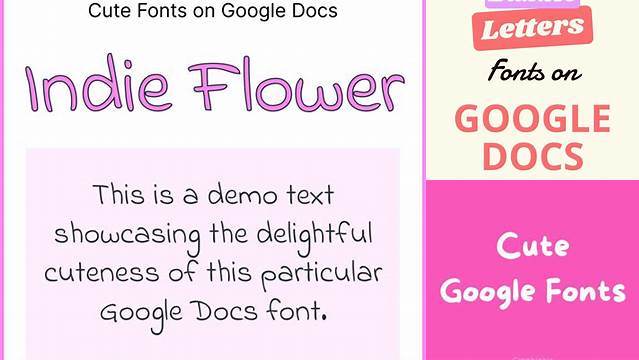
Cute Fonts For Google Docs: Make Your Docs Pop!
Hey guys! Ever feel like your Google Docs are looking a little…blah? You've got the killer content, the brilliant ideas, but the font just isn't doing it justice. Well, you're in the right place! We're diving headfirst into the world of cute fonts on Google Docs, and trust me, there are some real gems hidden in there. Choosing the right font is crucial for readability, setting the tone of your document, and overall visual appeal. Whether you're working on a school project, a fun blog post, or even a professional presentation that needs a touch of personality, the perfect font can make all the difference. Let's explore how to transform your documents from plain text to visually stunning creations. We'll cover a range of fonts, from playful and whimsical to elegant and charming, ensuring you'll find the perfect match for your style and needs. So, grab your virtual pens and notepads, and let's get started on this font-tastic journey! First off, let's talk about why choosing a cute font matters. It's not just about aesthetics; it's about creating an engaging experience for your readers. Think about it: a document filled with a boring, default font can feel monotonous and even intimidating. A cute font, on the other hand, can inject personality and make your content more approachable and enjoyable. This is especially important for creative projects, blog posts, and even presentations where you want to capture and maintain your audience's attention. Moreover, the right font can significantly enhance readability. While some fonts are undeniably stylish, they might not be the easiest to read, especially in large blocks of text. We'll focus on fonts that strike a balance between cuteness and clarity, ensuring your message is not only visually appealing but also easily digestible. Consider the context of your document as well. A font that works perfectly for a children's story might not be the best choice for a formal business report. We'll explore a variety of options to suit different purposes and occasions. Ultimately, selecting a cute font is about expressing your personal style and making your content shine. It's a small detail that can have a big impact, transforming your documents from ordinary to extraordinary. So, let's unlock the secrets of Google Docs' font library and discover the perfect fonts to elevate your work.
Top Picks for Cute Fonts in Google Docs
Alright, let's get down to the nitty-gritty! We've scoured Google Docs' font library and handpicked some seriously cute fonts that are sure to make your projects pop. We’re covering everything from playful script fonts to charming sans-serif options, ensuring there’s something for every style and occasion. Remember, the goal here is to enhance your document's visual appeal while maintaining readability and professionalism where necessary. So, without further ado, let's dive into our top picks! First up, we have Amatic SC, a condensed sans-serif font that's perfect for headlines and titles. Its tall, narrow letters give it a playful yet sophisticated feel, making it ideal for blog headers, posters, and invitations. Amatic SC adds a touch of whimsy without sacrificing clarity, ensuring your headings stand out and grab attention. Plus, it's super versatile and pairs well with a variety of body text fonts, making it a fantastic addition to your font arsenal. Next on our list is Caveat, a handwritten-style font that exudes personality and charm. If you're looking to add a personal touch to your documents, Caveat is an excellent choice. It's perfect for informal notes, thank-you cards, and even adding a friendly vibe to presentations. The slightly irregular letterforms give it a natural, handwritten feel, making your text feel more authentic and approachable. Just be mindful of using it sparingly for body text, as its handwritten style might be less readable in large blocks. For a font that's both cute and incredibly readable, look no further than Comfortaa. This rounded sans-serif font is a delight to the eyes, with its soft, gentle curves and friendly demeanor. Comfortaa is an excellent choice for body text, headlines, and everything in between. Its clean lines and balanced letterforms make it easy to read on screens and in print, ensuring your message is conveyed clearly and pleasantly. Plus, its versatility allows it to blend seamlessly into various design styles, from minimalist to playful. Let's not forget about Covered By Your Grace, a whimsical script font that's perfect for adding a touch of elegance and flair. This font is ideal for invitations, quotes, and any project where you want to make a statement. Its flowing, cursive letters create a sense of movement and sophistication, making your text feel extra special. While Covered By Your Grace is stunning, it's best used sparingly, as its ornate style might be overwhelming in large blocks of text. Finally, we have Patrick Hand, a quirky and playful handwritten font that's full of character. Patrick Hand is perfect for projects that need a dose of fun and informality. Its slightly uneven letterforms and bold strokes give it a unique and memorable appearance, making it ideal for children's materials, informal presentations, and even personal notes. Just like Caveat, it's best to use Patrick Hand judiciously, especially for body text, to ensure readability remains a priority. So, there you have it – our top picks for cute fonts in Google Docs! Each of these fonts offers a unique style and personality, allowing you to express yourself creatively while maintaining clarity and professionalism. Experiment with these fonts and discover how they can transform your documents into visually appealing masterpieces.
Tips for Choosing the Right Font for Your Project
Choosing the right font can feel like a daunting task, especially with so many cute fonts vying for your attention. But fear not, friends! We're here to arm you with some essential tips to help you navigate the world of typography and select the perfect font for your project. Remember, the font you choose plays a crucial role in conveying your message, setting the tone, and capturing your audience's attention. It's not just about aesthetics; it's about creating a cohesive and impactful visual experience. So, let's explore some key considerations to keep in mind when choosing a font. First and foremost, consider the purpose of your document. Are you writing a formal business report, a fun blog post, or a heartfelt invitation? The tone and style of your document should heavily influence your font choice. For formal documents, opt for classic and professional fonts like Times New Roman, Arial, or Calibri. These fonts are clean, legible, and convey a sense of authority and credibility. For more creative or informal projects, you have more leeway to experiment with playful and unique fonts. Handwritten-style fonts, script fonts, and quirky sans-serif fonts can add personality and charm to your work. However, always ensure that your font choice aligns with the overall message and tone of your document. Next up, think about readability. A font might be visually stunning, but if it's difficult to read, it's not the right choice. Readability is paramount, especially for body text. Choose fonts with clear letterforms, adequate spacing, and a comfortable size. Avoid overly ornate or decorative fonts for large blocks of text, as they can strain the eyes and make reading a chore. Stick to simple, legible fonts like Open Sans, Lato, or Roboto for your body text. For headings and titles, you can afford to be a bit more adventurous with your font choice, but always ensure that your headings are easily distinguishable from the body text. Consider the font pairing as well. Combining different fonts can add visual interest and create a more dynamic design, but it's crucial to do it right. A general rule of thumb is to pair a serif font with a sans-serif font. For example, you might pair a classic serif font like Merriweather for your headings with a clean sans-serif font like Open Sans for your body text. Avoid pairing fonts that are too similar, as this can create a jarring effect. Also, limit yourself to two or three fonts per document to maintain a cohesive and professional look. Another important factor to consider is font size. The size of your font can significantly impact readability and visual appeal. Choose a font size that's comfortable to read, both on screen and in print. For body text, a font size of 11 or 12 points is generally a good starting point. For headings, use larger font sizes to create a clear visual hierarchy. Experiment with different font sizes to find the right balance for your document. Finally, don't be afraid to experiment and try new things. The world of typography is vast and exciting, and there are countless fonts waiting to be discovered. Browse Google Docs' font library, try out different combinations, and see what works best for your style and preferences. The more you experiment, the better you'll become at choosing the perfect font for your project. So, there you have it – some essential tips for choosing the right font. By considering the purpose of your document, readability, font pairing, font size, and your own personal style, you'll be well on your way to creating visually stunning and impactful documents. Happy font hunting!
Examples of Cute Font Combinations in Google Docs
Alright, guys, let's get practical! We've talked about the best cute fonts and how to choose them, but now it's time to see some real-world examples. We're going to explore some fantastic font combinations in Google Docs that will elevate your documents from plain to polished. Mixing and matching fonts can be a bit of an art, but with a few guidelines and some inspiration, you'll be creating stunning typography in no time. Remember, the key to successful font pairing is to create contrast and harmony. You want fonts that complement each other without competing for attention. So, let's dive into some winning combinations that you can use for various projects. First up, we have the classic combination of Amatic SC for headings and Open Sans for body text. Amatic SC, with its tall and condensed letterforms, adds a touch of whimsy to your headings, while Open Sans provides a clean and readable body text. This pairing is perfect for blog posts, presentations, and even invitations. The contrast between the playful heading and the professional body text creates a balanced and visually appealing look. Next, let's explore a combination that's both cute and elegant: Covered By Your Grace for headings and Lato for body text. Covered By Your Grace, with its flowing script, adds a touch of sophistication to your headings, while Lato, a clean sans-serif font, ensures readability for your body text. This pairing is ideal for invitations, thank-you cards, and any project where you want to convey a sense of grace and charm. The contrast between the script heading and the sans-serif body text creates a visually stunning effect. For a more playful and informal look, try pairing Patrick Hand for headings with Comfortaa for body text. Patrick Hand, with its quirky handwritten style, adds a dose of personality to your headings, while Comfortaa, a rounded sans-serif font, provides a friendly and approachable body text. This combination is perfect for children's materials, informal presentations, and even personal notes. The pairing of two informal fonts creates a fun and engaging atmosphere. If you're looking for a combination that's both modern and readable, consider using Montserrat for headings and Roboto for body text. Montserrat, a geometric sans-serif font, adds a touch of contemporary style to your headings, while Roboto, another clean sans-serif font, ensures readability for your body text. This pairing is ideal for websites, presentations, and any project where you want to convey a sense of modernity and clarity. The combination of two sans-serif fonts with different weights and styles creates a visually balanced and professional look. Finally, let's explore a combination that's perfect for a personal touch: Caveat for headings and Raleway for body text. Caveat, with its handwritten style, adds a personal and authentic feel to your headings, while Raleway, a clean sans-serif font, provides a readable and elegant body text. This pairing is ideal for personal notes, letters, and even blog posts. The contrast between the handwritten heading and the sans-serif body text creates a warm and inviting atmosphere. So, there you have it – some examples of cute font combinations that you can use in your Google Docs. Experiment with these pairings and see how they can transform your documents. Remember, the key is to find combinations that reflect your style and effectively convey your message. Happy font combining!
Conclusion: Making Your Google Docs Shine with Cute Fonts
Alright, guys, we've reached the end of our font-tastic journey! We've explored the world of cute fonts in Google Docs, learned how to add and use them, discovered tips for choosing the right font, and even explored some winning font combinations. Now, it's time to put your newfound knowledge into practice and make your Google Docs shine! Remember, choosing the right font is about more than just aesthetics; it's about creating a visual experience that engages your readers, conveys your message effectively, and reflects your personal style. A well-chosen font can transform a plain document into a polished and professional masterpiece. So, let's recap some key takeaways from our adventure. First, we highlighted the importance of readability. While cute fonts can add personality and charm to your documents, it's crucial to prioritize readability, especially for body text. Choose fonts with clear letterforms and avoid overly ornate or decorative options for large blocks of text. Next, we emphasized the importance of considering the purpose of your document. The font you choose should align with the tone and style of your project. Formal documents call for classic and professional fonts, while creative projects allow for more playful and unique options. We also explored the art of font pairing. Combining different fonts can add visual interest, but it's essential to do it right. Pairing a serif font with a sans-serif font is a classic approach, and limiting yourself to two or three fonts per document can maintain a cohesive look. Adding custom fonts to your Google Docs arsenal opens up a world of possibilities. With a vast library of fonts at your fingertips, you can truly personalize your documents and make them stand out. Remember, it is a super simple process. We've also delved into some specific font recommendations, including Amatic SC, Caveat, Comfortaa, Covered By Your Grace, and Patrick Hand. Each of these fonts offers a unique style and personality, allowing you to express yourself creatively. Finally, we explored some winning font combinations that you can use for various projects. Pairing Amatic SC with Open Sans, Covered By Your Grace with Lato, Patrick Hand with Comfortaa, Montserrat with Roboto, and Caveat with Raleway are all excellent options for creating visually appealing and effective documents. So, what's the next step? It's time to experiment! Dive into Google Docs' font library, try out different fonts, and see what resonates with you. Don't be afraid to mix and match, but always keep readability and consistency in mind. With a little practice, you'll develop your own signature style and create documents that are both visually stunning and highly effective. Remember, your documents are a reflection of you, so make them shine! Choose fonts that express your personality, convey your message clearly, and captivate your audience. And most importantly, have fun with it! The world of typography is vast and exciting, so embrace the journey and let your creativity soar. Happy font hunting, guys! We hope this guide has inspired you to elevate your Google Docs with cute fonts. Go forth and create something amazing!